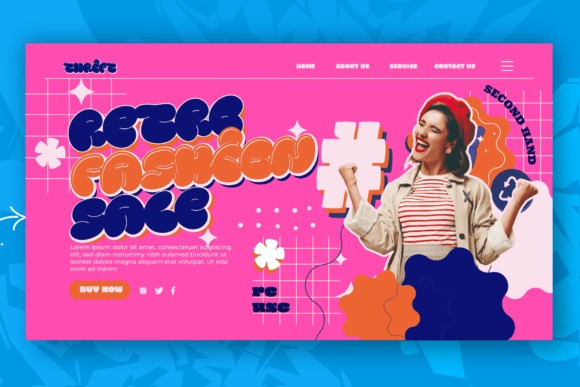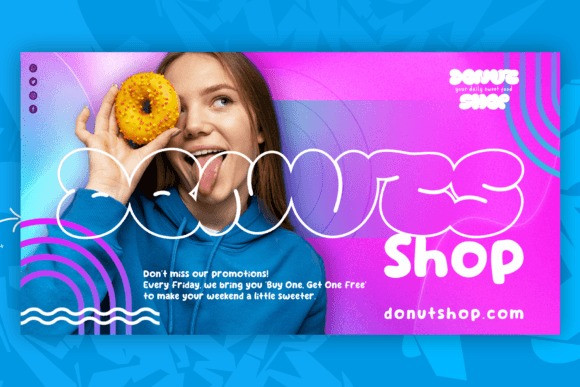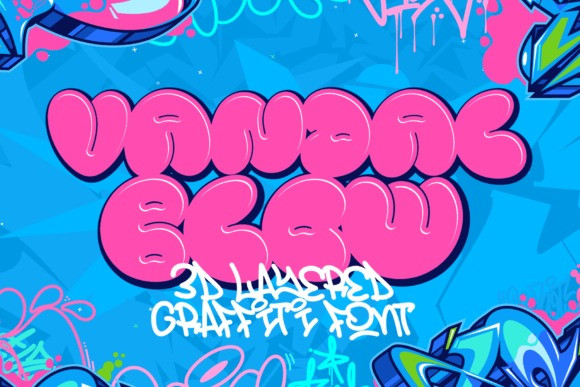
Vandal Blow Font
Vandal Blow Font is a 3D layered graffiti font that includes solid, shadow, and inner shadow styles, providing the tools to create a three-dimensional appearance in your text. Fonts with layered styles like this are commonly employed in graffiti art, street art, posters, and other designs where a dynamic and eye-catching 3D effect is desired.
By utilizing the solid, shadow, and inner shadow layers in “Vandal Blow,” you can enhance the visual impact of your text, creating a sense of depth and dimension. This font is particularly suitable for projects where you want to infuse a graffiti-style aesthetic with a three-dimensional twist, making your text stand out and grab attention.